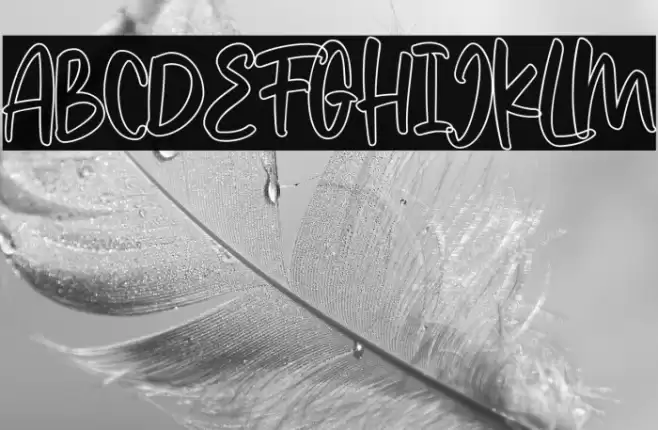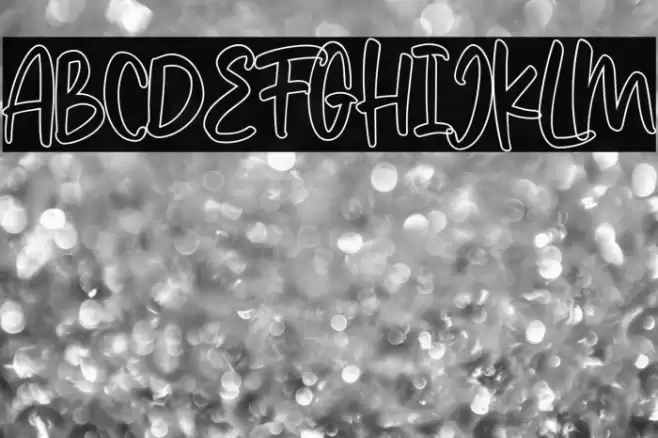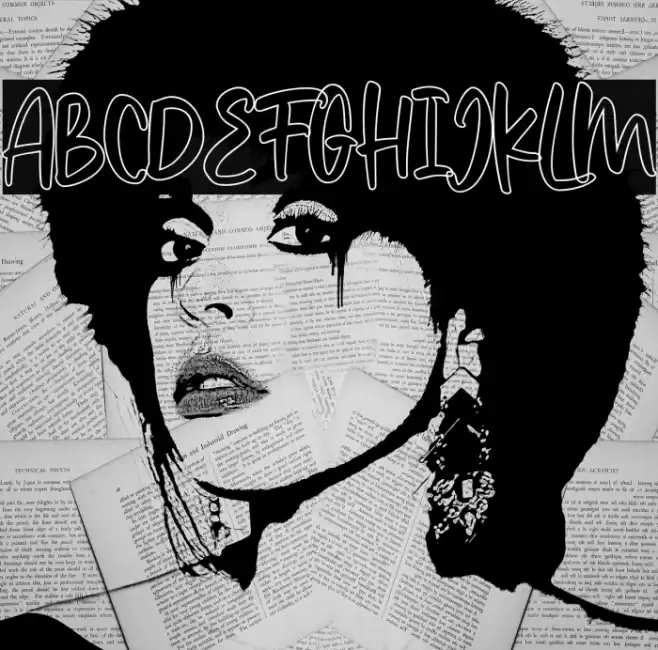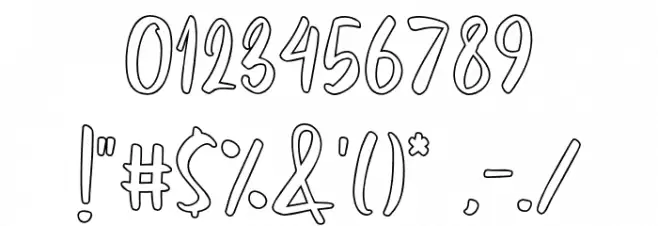
Rosebella-Outline FREE PERSONAL USE Font
Rosebella-Outline FREE PERSONAL USE Description
This font features a playful and energetic outline style, characterized by its hand-drawn appearance. The uppercase and lowercase letters are consistent in their whimsical design, with a slight slant that adds a dynamic feel. The numbers and special characters maintain the same lively aesthetic, making the font versatile for various creative projects. The strokes are uniform in width, giving the font a cohesive look, while the open spaces within the outlines contribute to its airy and light-hearted nature.
A playful, hand-drawn outline font with a lively and dynamic style from Uncategorized fonts.
- Font: Rosebella-Outline FREE PERSONAL USE
- Proposed Projects: Ideal for children's book covers, playful branding, greeting cards, and creative posters.
- Overall Style: Playful, Hand-drawn